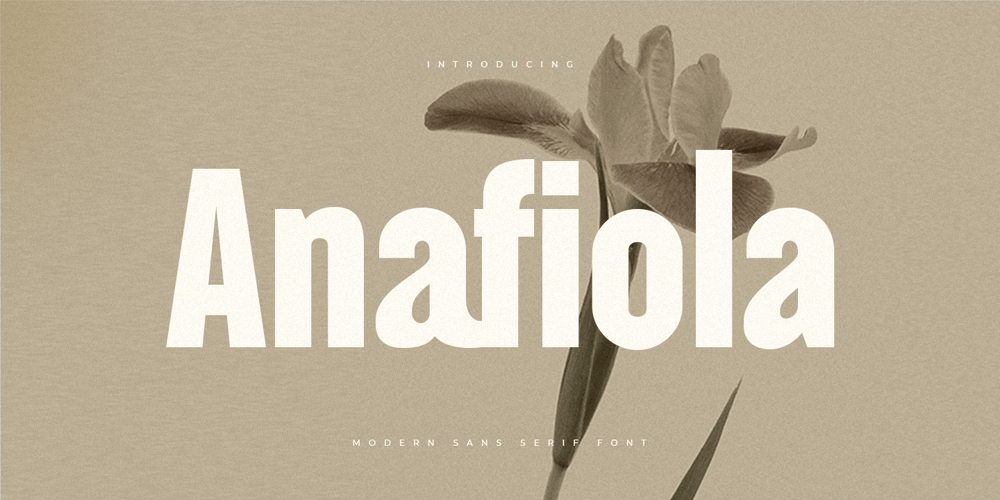
Anafiola Font Family was designed by Zamroni Hamzah and published by Sensatype Studio. Anafiola contains 2 styles and family package options. A Sans serif that we created special for unique branding needs, with extra ligatures in unique shape will be ready to add value of your brand.Anafiola – Inspired by Helvetica Font ready with: Any options to get creative variations (combination of Ligatures) Regular and Italic Version Preview as a inspirations that you can do with Anafiola font Ready with Lowercase and Uppercase characters Wish you enjoy our font. ๐